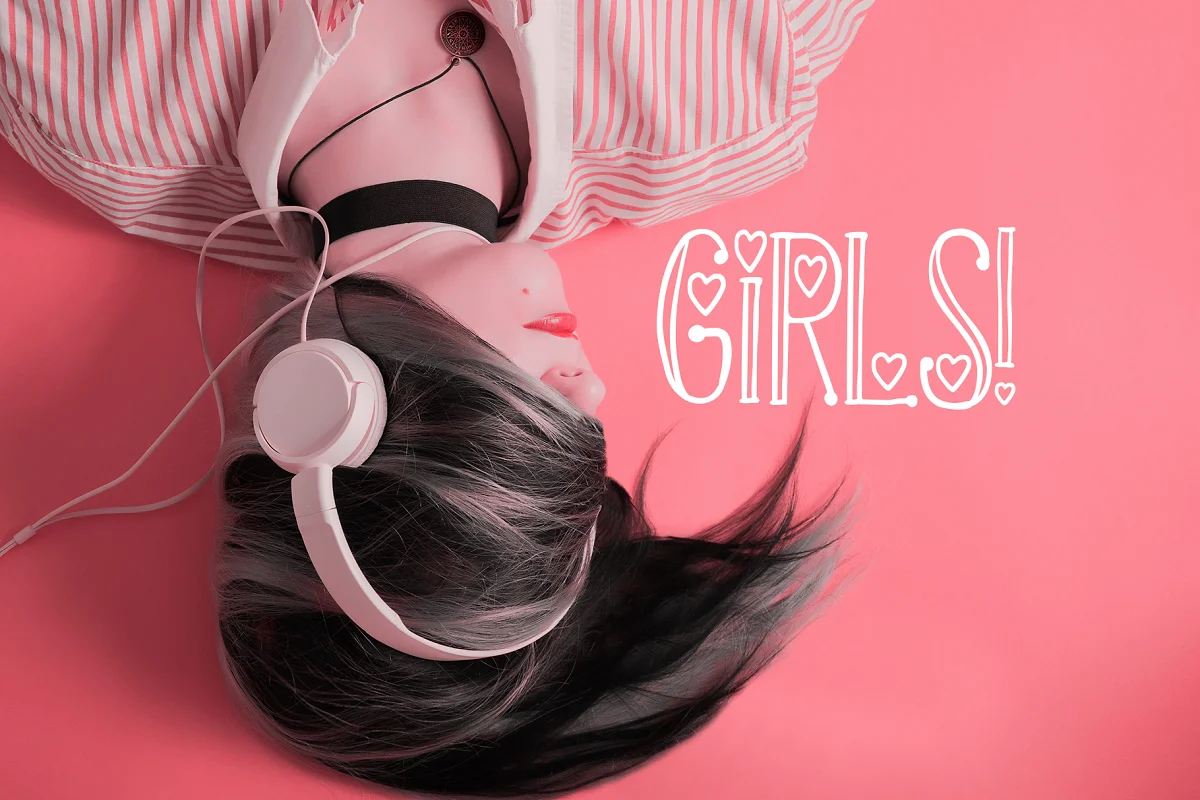
About the Hots Perfect Valentine Day Font
Are you ready for Valentine’s Day? I’ve got a perfect font for you! Decorative hand-drawn hearts combine with beautiful characters! Perfect for Valentine’s Day gift cards, packaging design, sweet wishes for lovers.